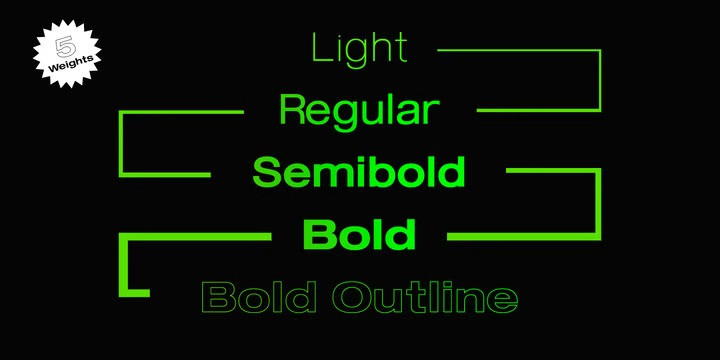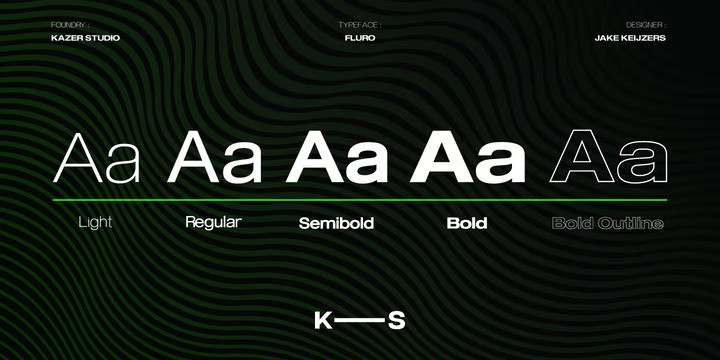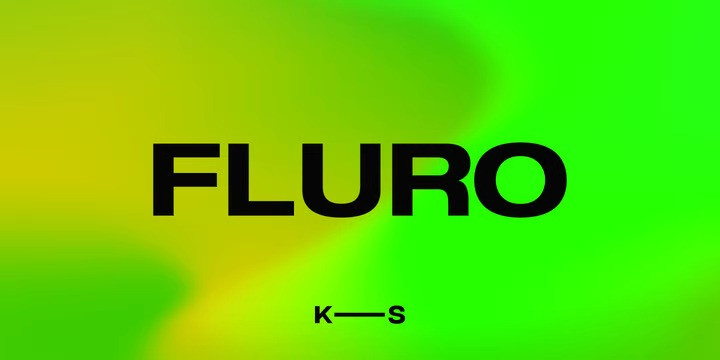
Fluro Font
Fluro Sans Serif  typeface is Sans Serif hybrid, designed to look modern & minimal in any setting. It is offered in 5 weight styles – Light, Regular, Semibold, Bold + a bonus “Bold Outline” style.The Typeface also includes special characters, language supports and specialized Kerning.